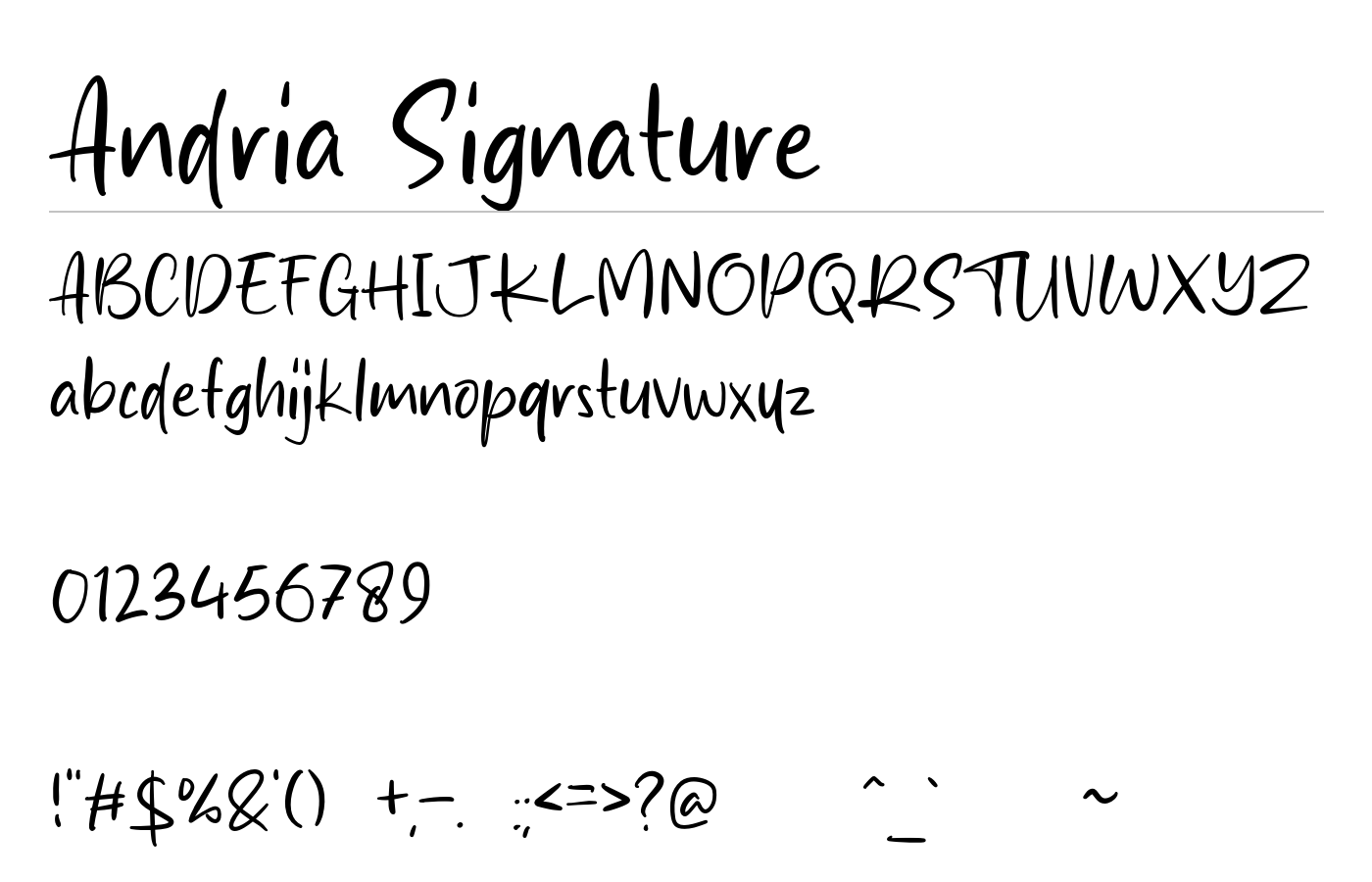
Andria Signature Font is a casual, handwritten script with a natural and friendly feel, featuring smooth, flowing strokes and moderate contrast. Its clean and slightly playful letterforms, including both uppercase and lowercase characters, make it perfect for personal branding, invitations, and creative projects where a warm, approachable touch is desired. This font works well in logos, social media graphics, and headlines, bringing an authentic, signature-style elegance to any design.
Andria Signature Font
About Andria Signature Font